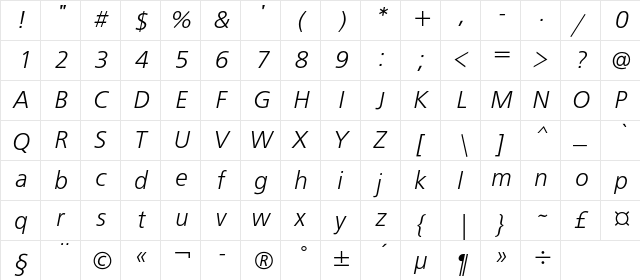
FreeSetLightC Italic Font Preview
Design Context for FreeSetLightC Typeface
FreeSetLightC is a composed and adaptable typeface that performs quietly and consistently across a wide range of design contexts. Its italic angle brings a sense of urgency and motion to the letterforms. Its slender proportions lend an understated elegance to any composition.
Pro Tip: Try FreeSetLightC for annotation and caption copy alongside an upright companion — the contrast in angle creates a dynamic but ordered typographic system.